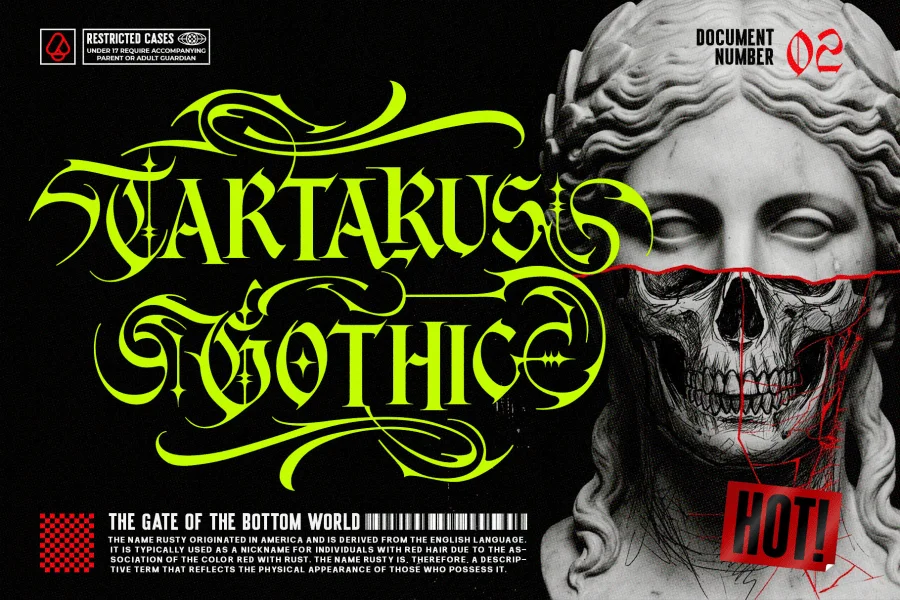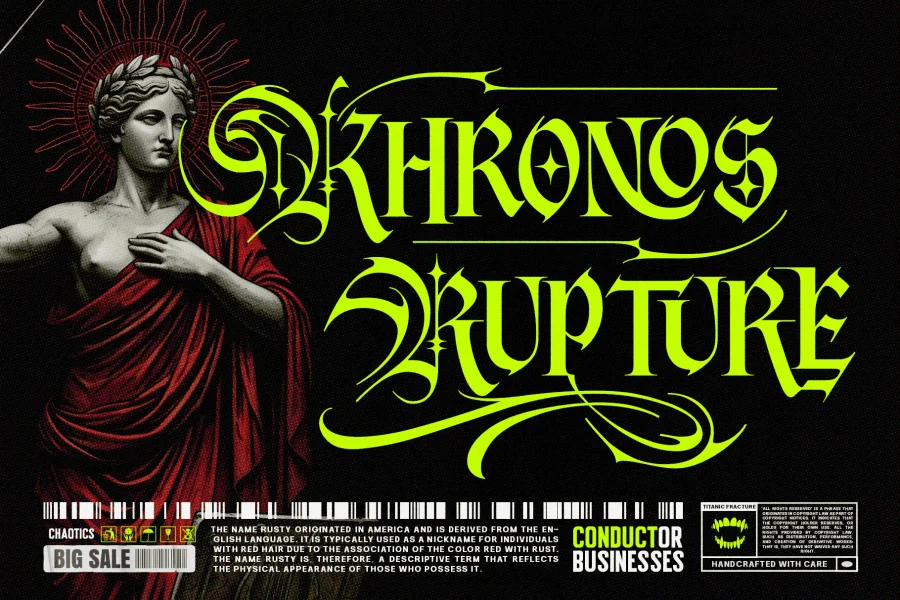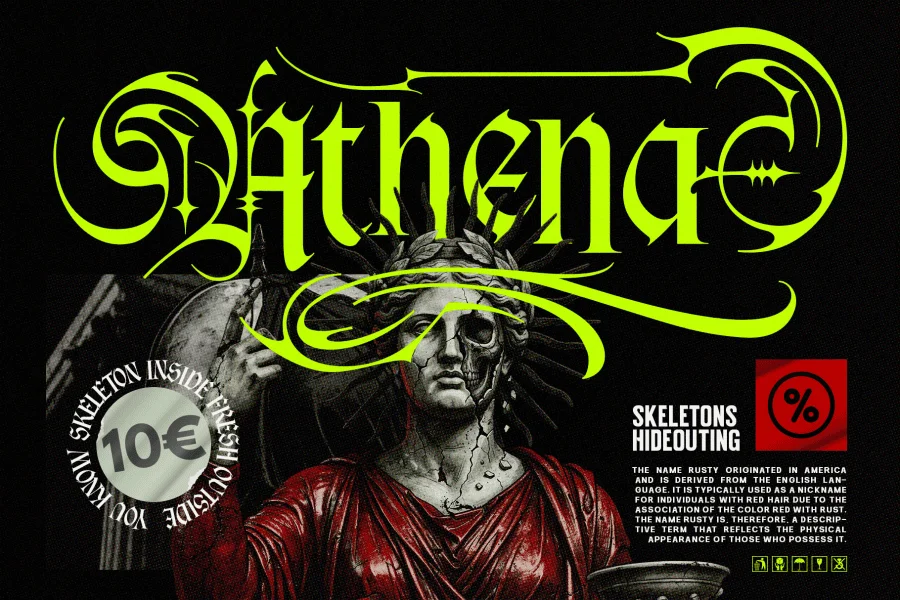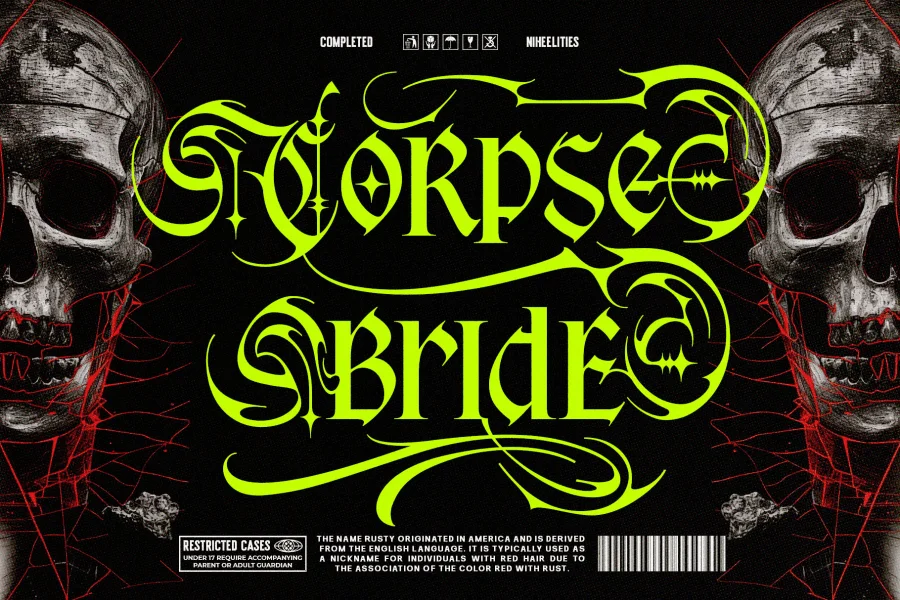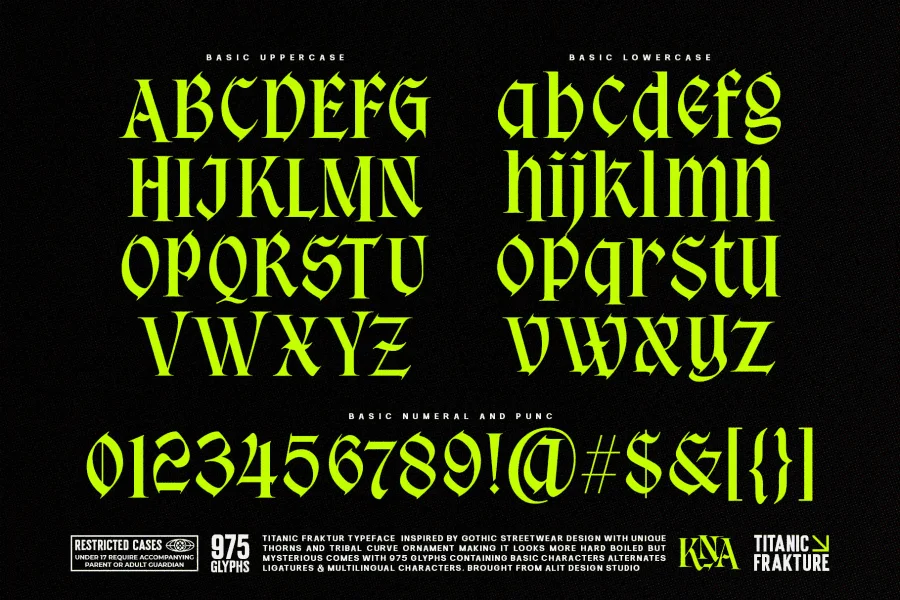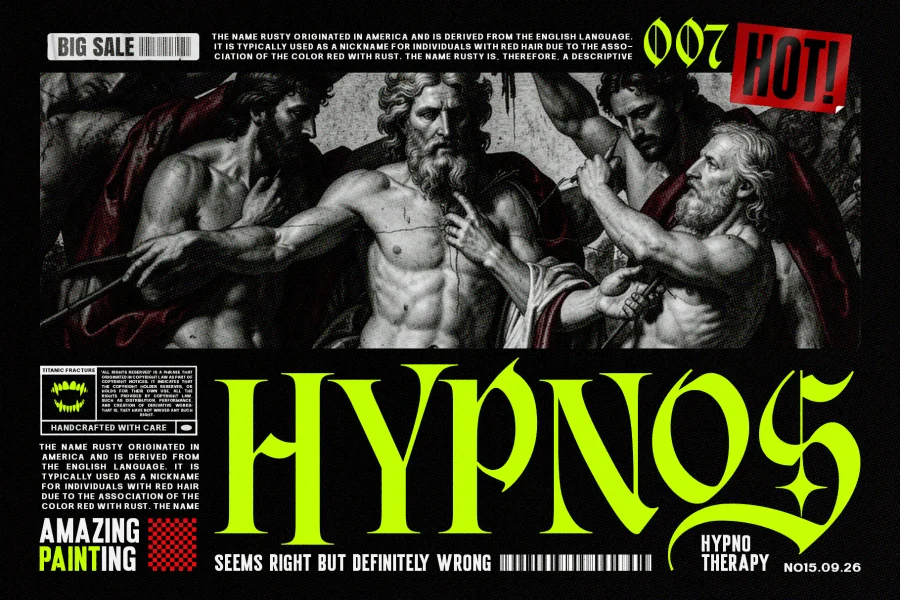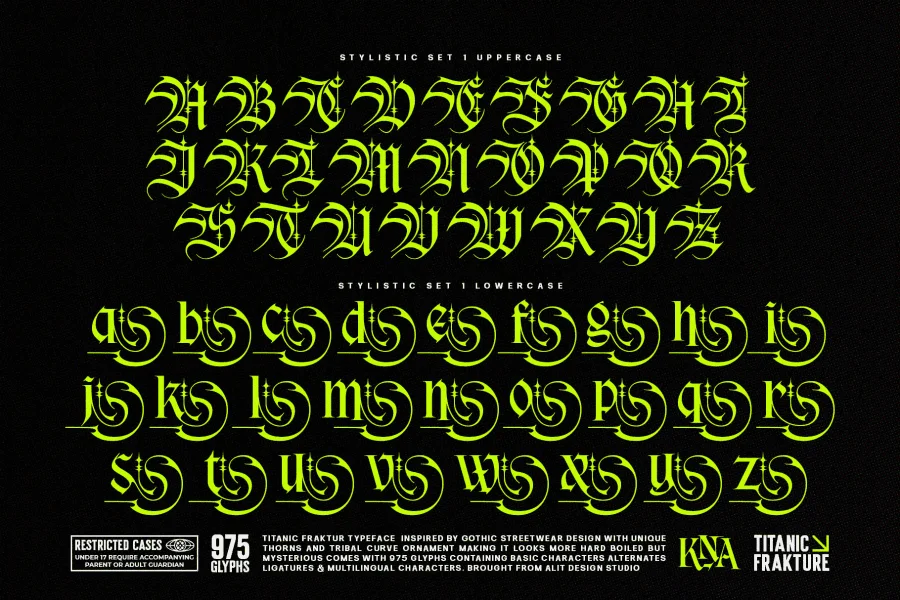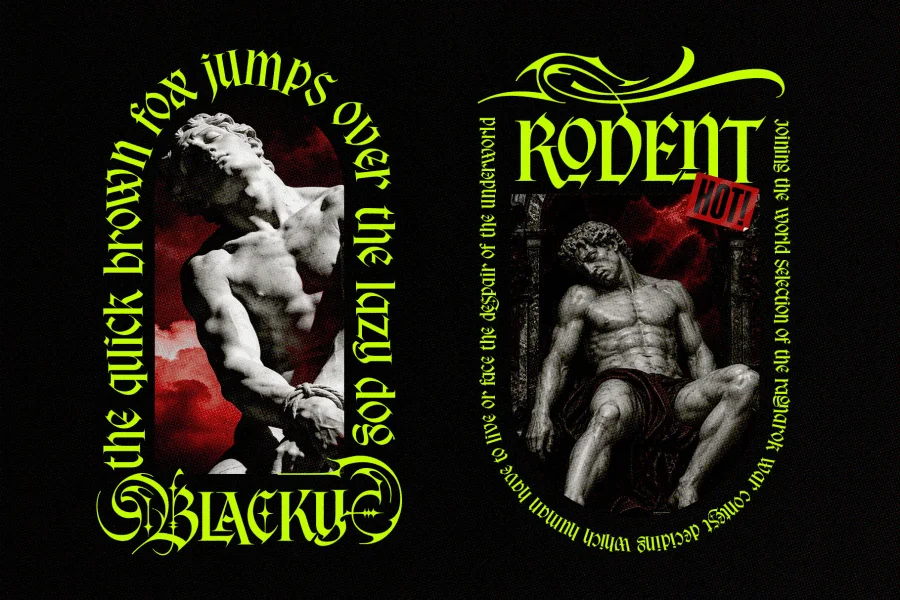
Titanic Fraktur – Gothic Streetwear Typeface
Unleash a bold fusion of classical heritage and modern underground culture with Titanic Fraktur, a cutting-edge blackletter typeface designed to dominate the contemporary design scene. Inspired by the raw energy of modern streetwear and tribal aesthetics, this font strikes the perfect balance between hard-boiled intensity and mysterious elegance.
Titanic Fraktur masterfully reinvents traditional German blackletter forms by incorporating sharp, aggressive thorns and fluid, organic tribal curves. The result is a hyper-stylized, high-impact display font that commands attention across both digital landscapes and physical merchandise.
With an incredible library of 975 glyphs, Titanic Fraktur isn’t just a font—it’s a comprehensive toolkit for creative expression. It is packed with basic characters, extensive multilingual support, and a massive array of alternates, ligatures, and stunning stylistic sets that allow you to seamlessly weave letters together for completely custom logotypes and layouts.